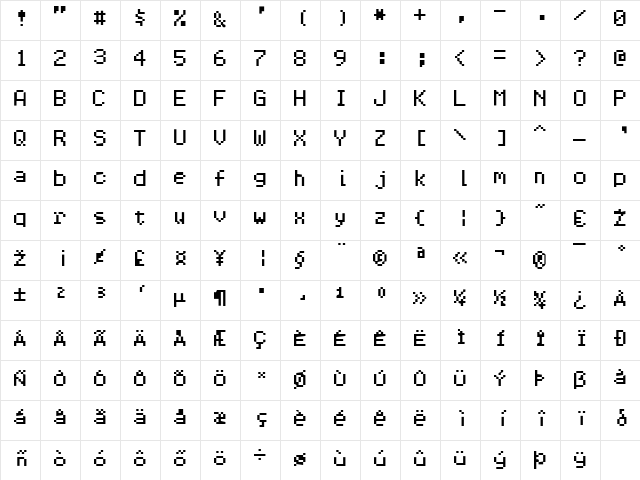
TerminalTTF Regular
Design Context for TerminalTTF Typeface
TerminalTTF offers clean, dependable letterforms without strong stylistic allegiance, making it a practical choice for designers who need flexibility.